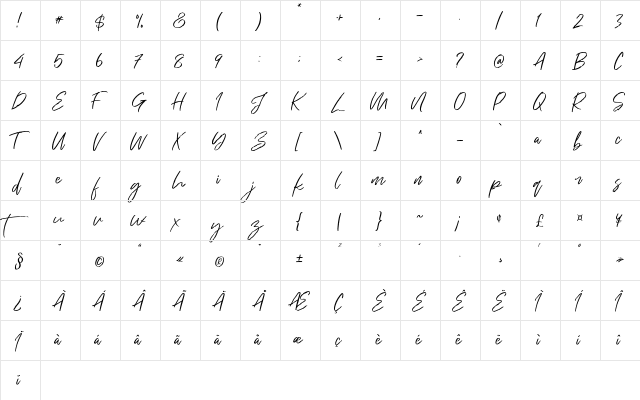
Just Kelly Justine Regular
Design Context for Just Kelly Justine Typeface
Just Kelly Justine is a composed and adaptable typeface that performs quietly and consistently across a wide range of design contexts.